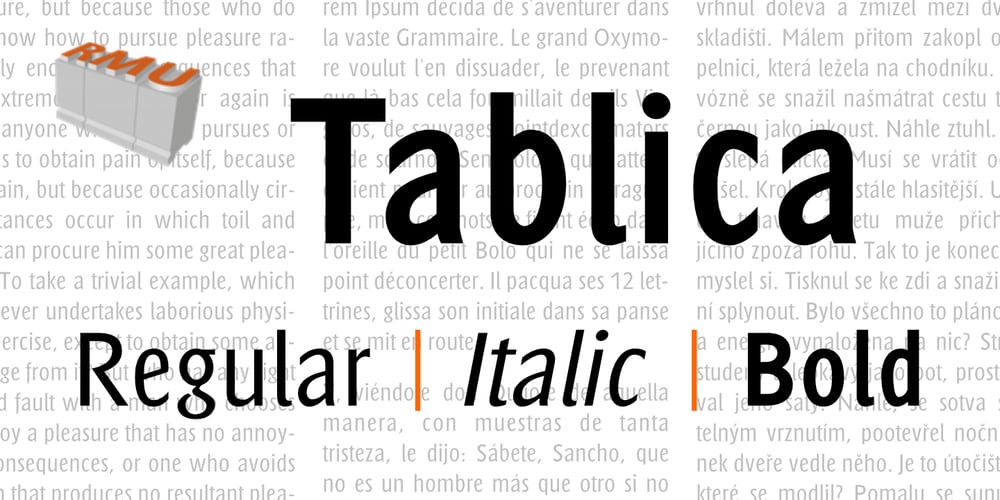
Tablica Font Family was designed by Ralph M. Unger and published by RMU. Tablica contains 3 styles and family package options. Inspired by Typoart’s Minima, Tablica which comes in three styles – Regular, Italic, Bold – fills ideally narrow columns, charts and tables. Since all numerals are monospaced, you can sum up all numbers of a table. Though this is a condensed sans serif family, it offers a high legibility even in small degrees.